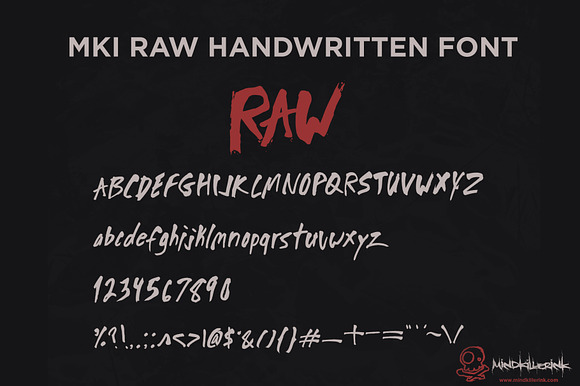
MKI RAW FONT
- RAW Regular
Why MKI RAW FONT is worth a look
MKI RAW FONT by MindkillerINK fits naturally into Branding, posters, packaging, typography.